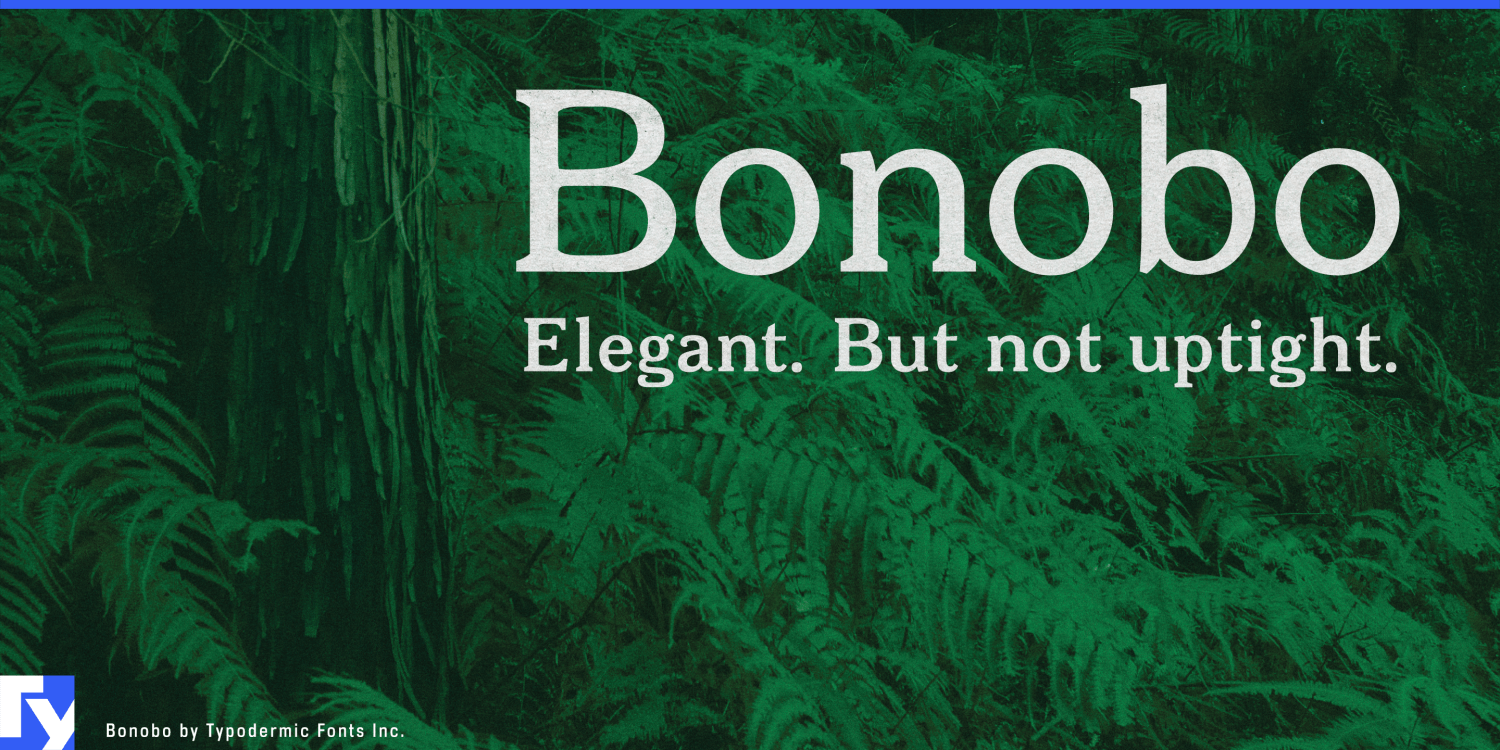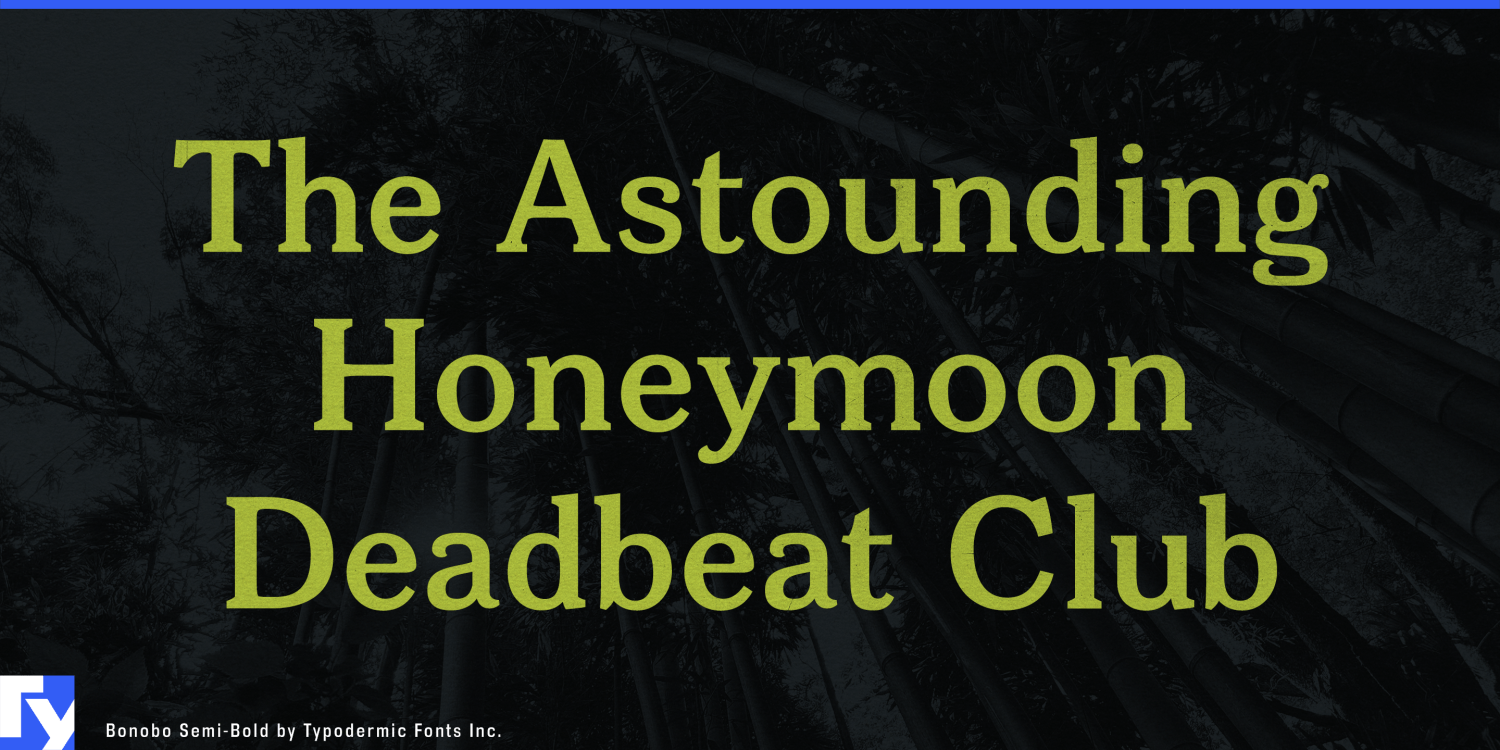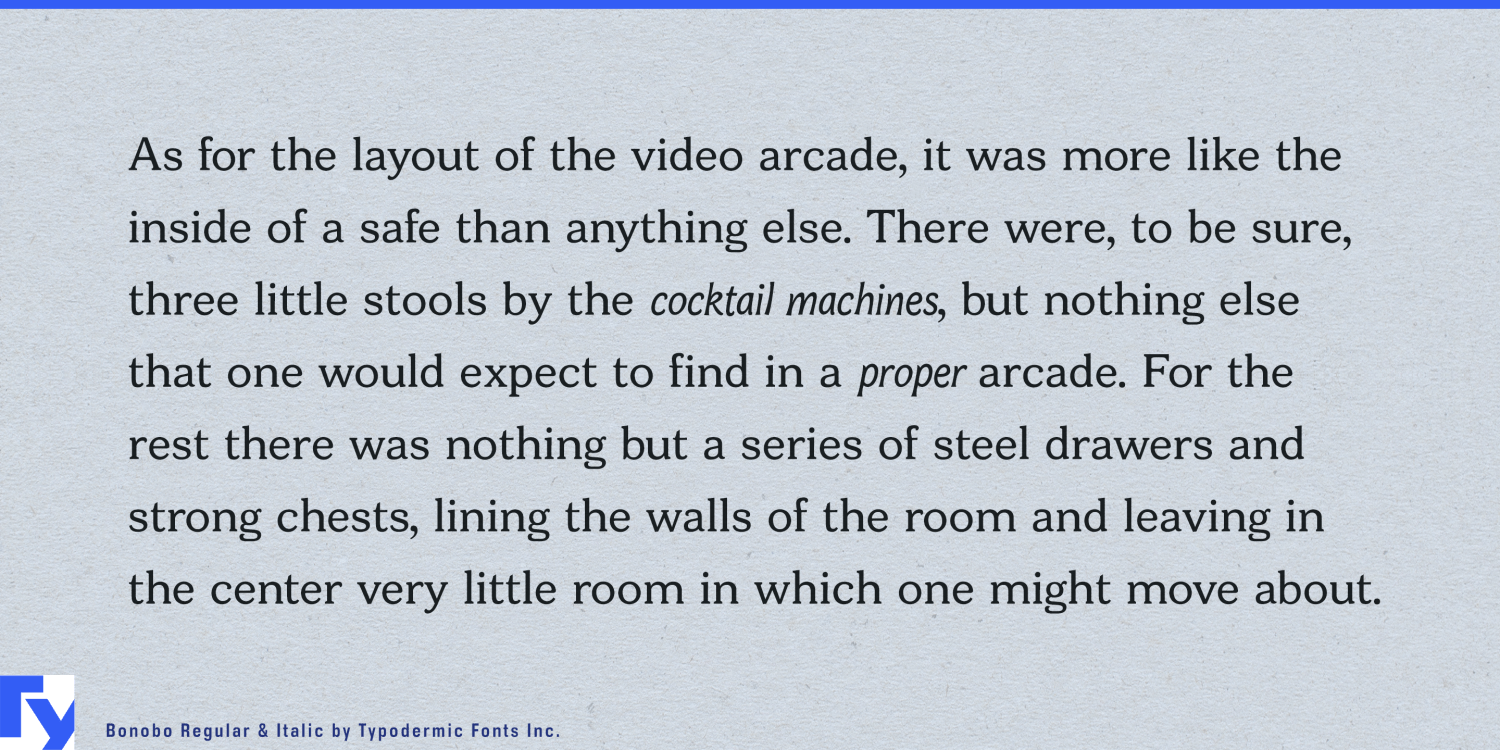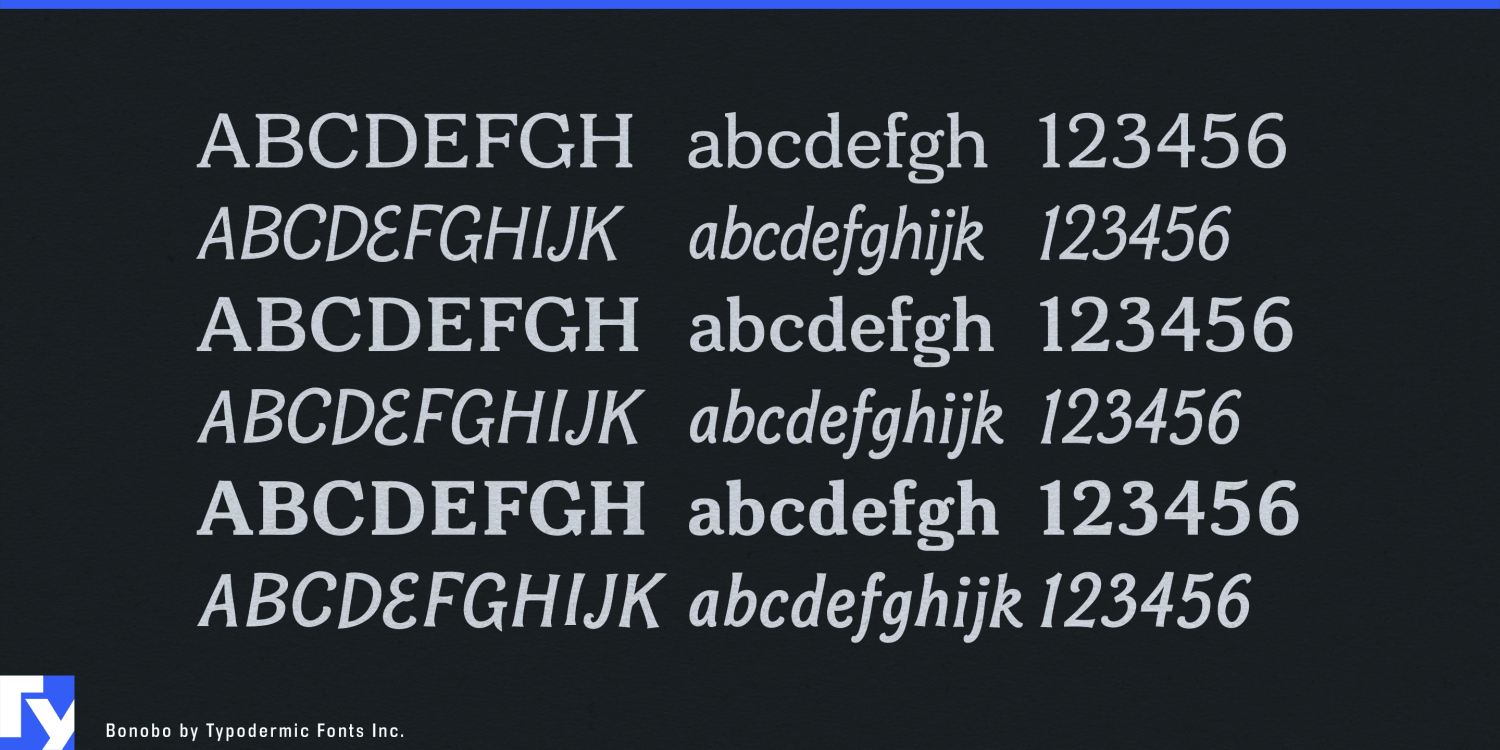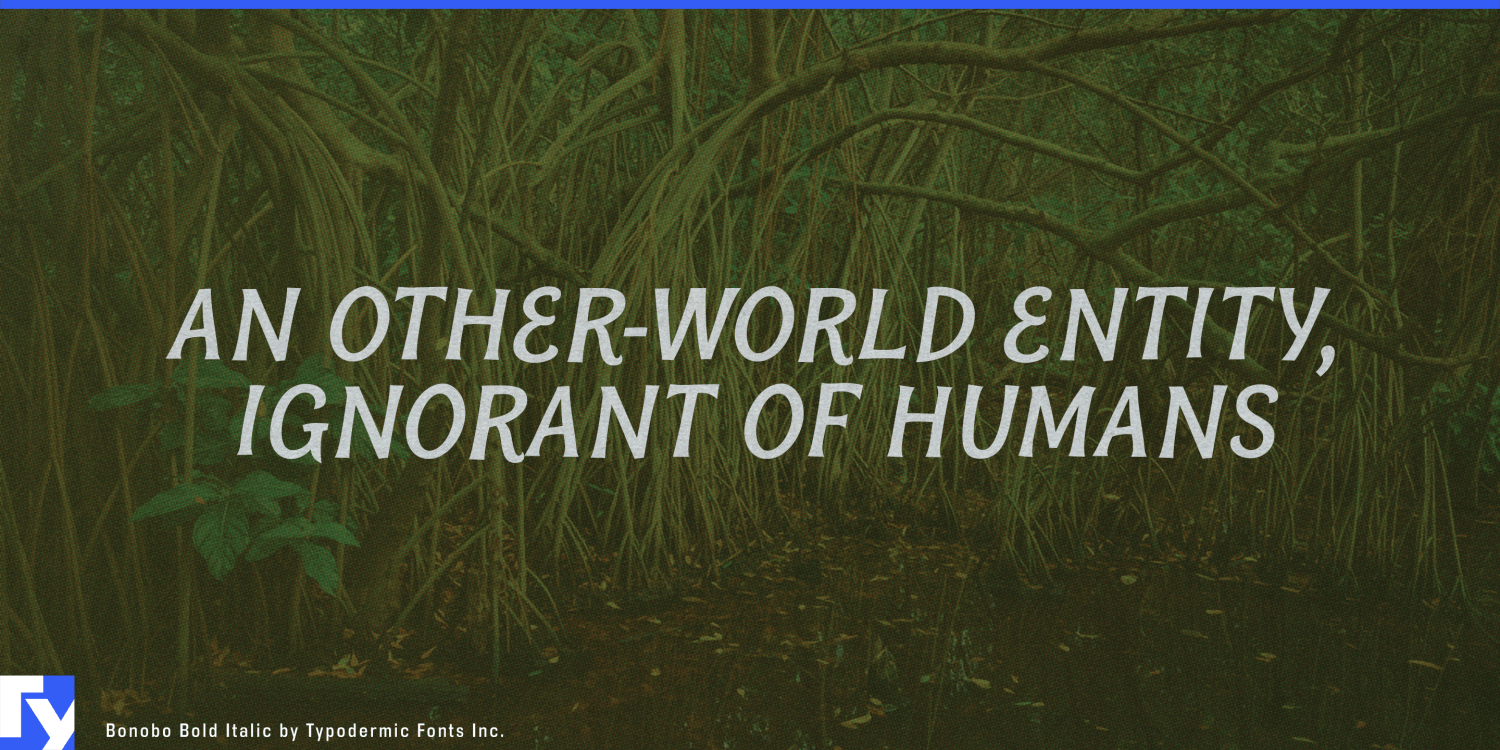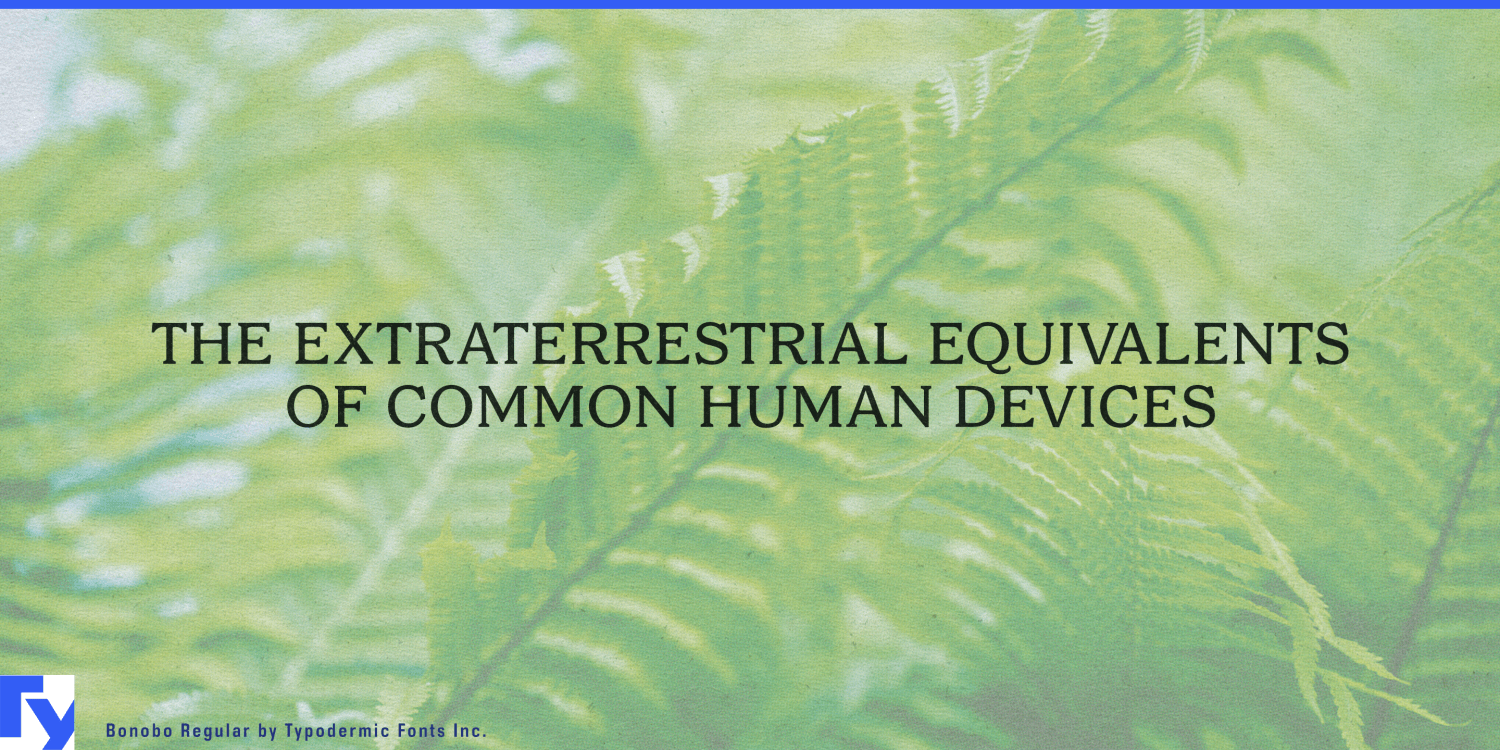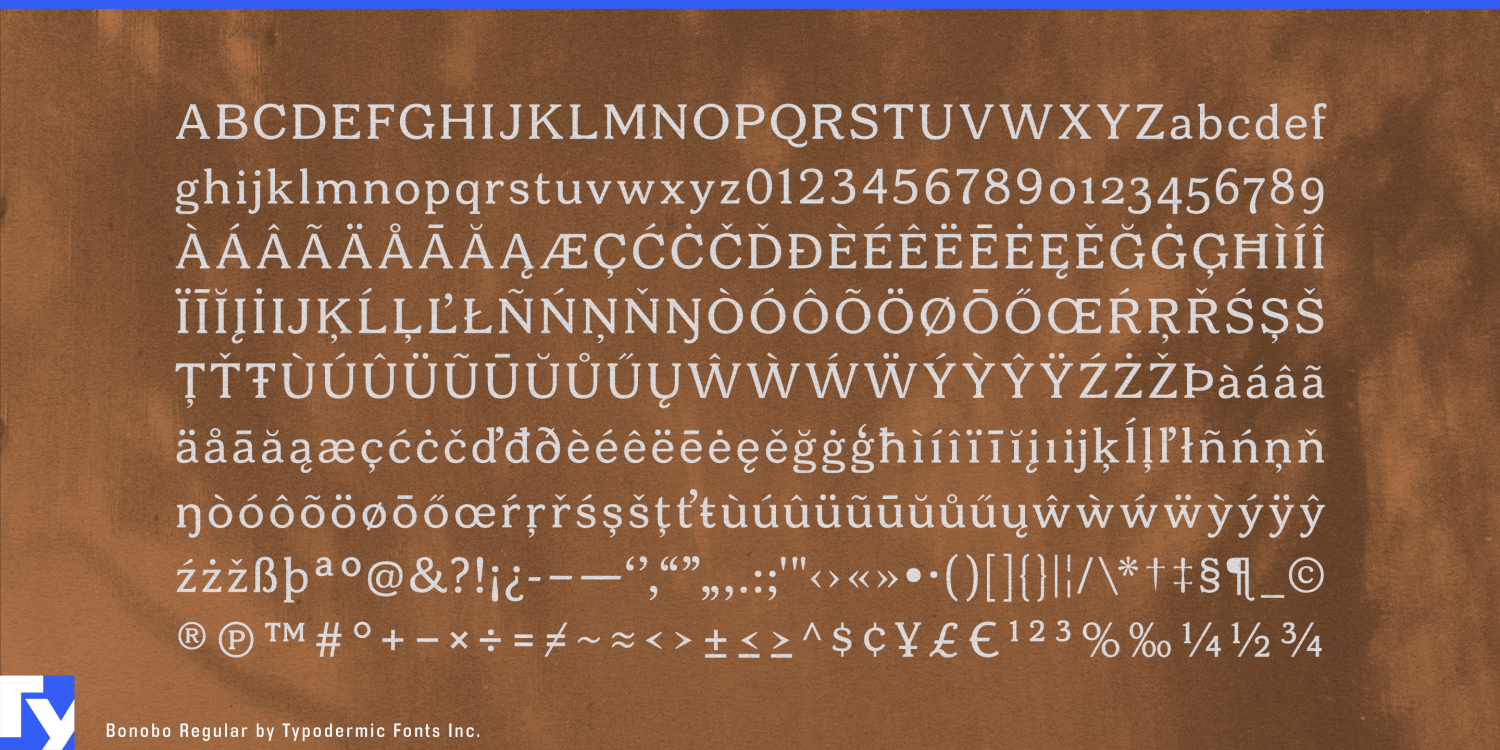
Bonobo
Bonobo is a sturdy serif with something slightly peculiar around the edges. Its upright styles draw on nineteenth-century book typography, but expected vertical serifs and ball terminals give way to claw-like forms that interrupt the usual polish. The italics loosen considerably, creating a second voice that feels more drawn, organic, and restless without leaving the family behind.
That combination makes Bonobo useful when scholarly or historical typography feels appropriate but a conventional book serif would make the project too formal. Natural-history museums, botanical gardens, arboretums, biodiversity institutes, ecological consultancies, and conservation organizations can use it for exhibition titles, programme names, interpretive graphics, report covers, visitor campaigns, and environmental publications. Upright styles can establish authority while the italics introduce quotations, species names, annotations, and informal secondary material.
Literary and cultural publishing offers a similar role. Bonobo suits literary fiction, essays, folklore, cultural history, environmental writing, food history, and narrative nonfiction where the subject needs a bookish foundation without looking overly traditional. Titles and section headings can remain composed; subtitles, contributor names, pull quotes, and chapter openings can bring in the more conspicuous italic forms.
Its stranger details also suit exhibitions and media dealing with regional legends, archaeological finds, superstition, ritual objects, traditional medicine, and other subjects where a faint sense of unease is useful. Bonobo can suggest historical material without resorting to blackletter, distressed Victorian lettering, or obvious horror typography.
Heritage foods, specialty cheese, preserves, tea, fermentation products, vineyard estates, historic gardens, and restored rural inns can use the same contrast to suggest provenance without becoming precious. Bonobo provides a solid serif framework with enough irregularity to keep cultural, natural-history, and place-based identities from feeling overly institutional.